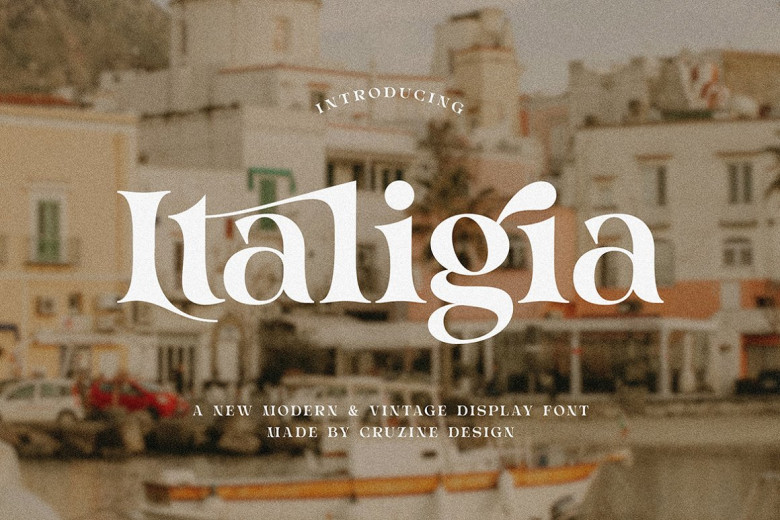
Italigia Font
Italigia is a stylish, modern, retro, and elegant style serif font to meet the needs of contemporary projects. Its fancy, bold, and fashion style work well for branding purposes while its extensive alternates and Ligatures can help create original logo designs or website headers for branding purposes. Enjoy!
Italigia Modern Serif Font